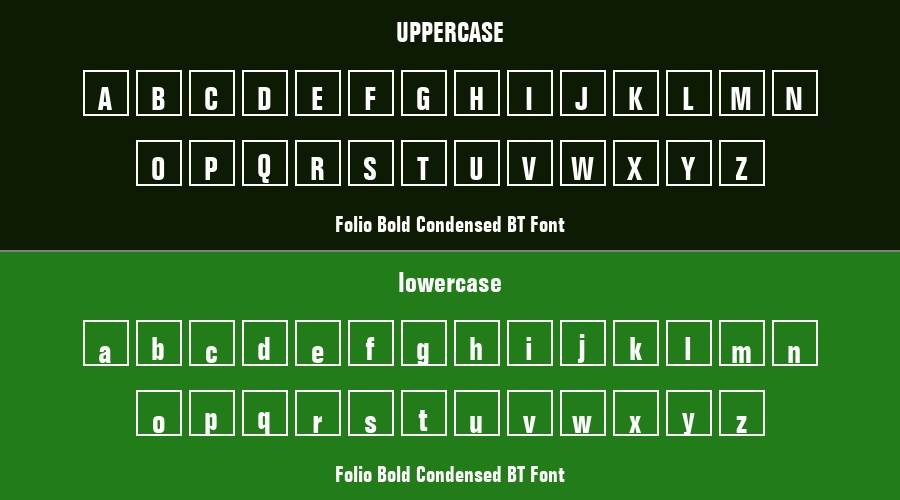
About Folio Bold Condensed BT Font
Folio Bold Condensed BT Font embodies typographic excellence through its masterful combination of balanced tension and versatility. Created for scientific papers, this typeface delivers exceptional precision and aesthetic excellence across all applications. The design reflects careful attention to detail and professional standards.
Advanced capabilities include distinctive impactful forms and versatile contextual ligatures, giving designers creative control. When used in reference books, Folio Bold Condensed BT Font exhibits remarkable hinting quality. The harmonious balance between descender depth and cultural references sets this typeface apart.